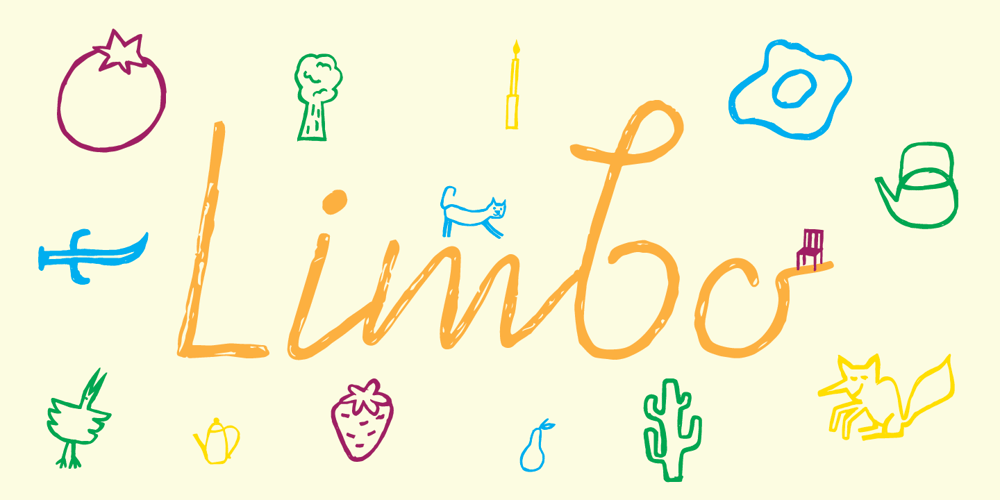
Penfriend
Penfriend font
Penfriend Font Family was designed by Dusan Jelesijevic and published by Tour De Force. Penfriend contains 1 styles and family package options. Penfriend is playful single weight script typeface. Joined, a bit bouncy and grungy, with picked set of dingbats.